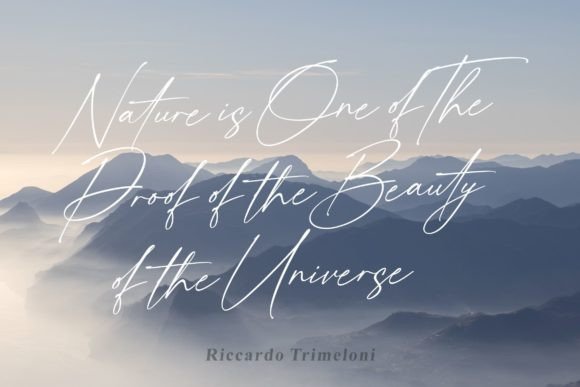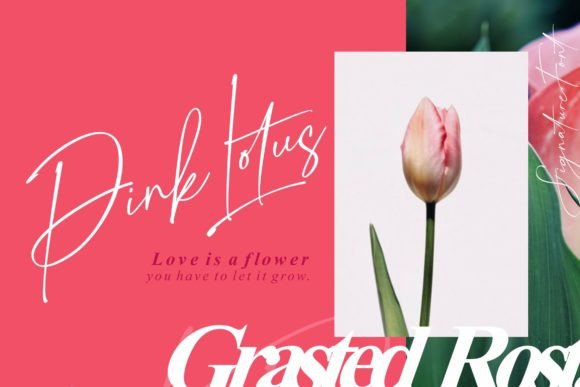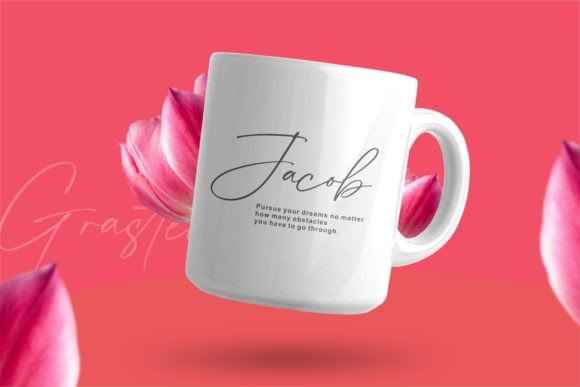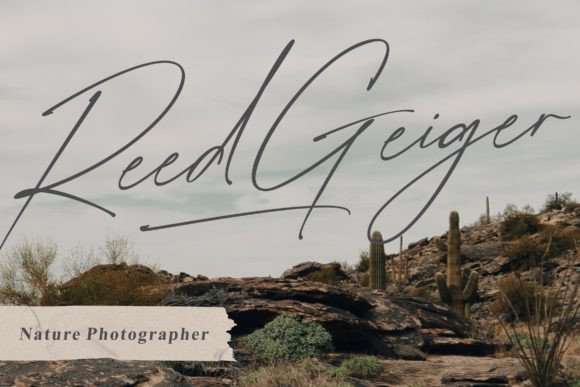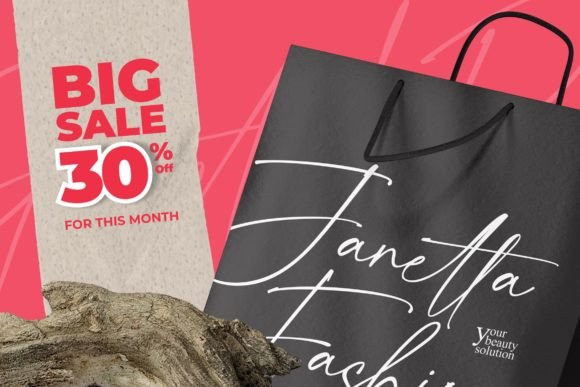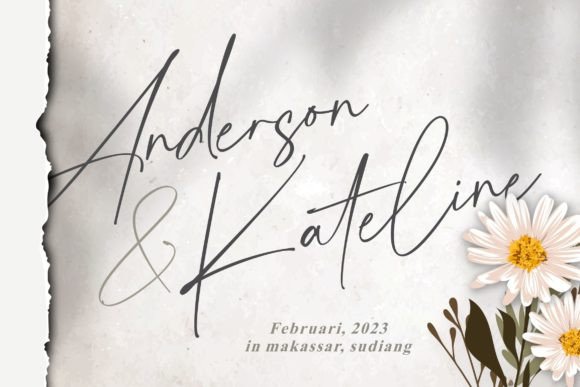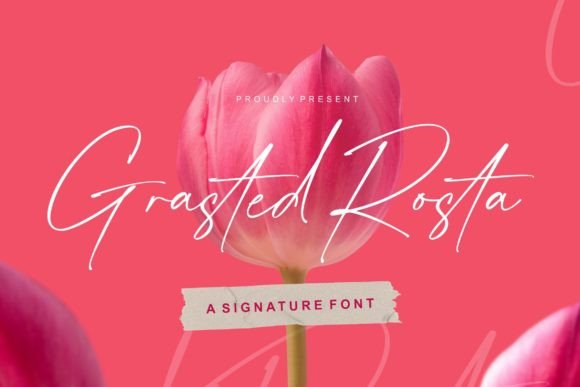
Introducing Grasted Rosta: The Ultimate Handcrafted Signature Font for Designers and Crafters
In the world of design, a font can make all the difference in creating a lasting impression. For designers and crafters looking for a modern and elegant touch, Grasted Rosta is the perfect solution. This handcrafted signature font is designed to elevate your branding, photography, invitations, quotes, watermarks, advertisements, product designs, social media posts, stationery, labels, and more!
What Makes Grasted Rosta Special?
Grasted Rosta is more than just a font – it’s a statement piece. With its modern and elegant design, this font is perfect for those who want to add a touch of sophistication to their work. The handcrafted signature style gives it a personal and unique feel, making it ideal for designs that require a human touch.
One of the standout features of Grasted Rosta is its PUA (Private Use Area) encoding. This means that you can access all of the glyphs and swashes with ease, giving you complete creative control over your designs. With PUA encoding, you can effortlessly navigate through the font’s extensive character set, including ligatures, alternates, and swashes.
Grasted Rosta is incredibly versatile, making it perfect for a wide range of design applications. Here are just a few examples of how you can use this amazing font:
- Branding: Create a lasting impression with custom logos, business cards, and letterheads that showcase your brand’s personality.
- Photography: Add a touch of elegance to your photo captions, watermarks, and social media posts.
- Invitations: Make your invitations, wedding cards, and event flyers truly special with Grasted Rosta’s beautiful script.
- Quotes and Typography: Create stunning quote graphics, typographic posters, and inspirational wall art.
- Advertisements: Elevate your ads with a sophisticated and eye-catching font that grabs attention.
- Product Designs: Add a personal touch to your product labels, packaging, and branding materials.
- Social Media Posts: Stand out on social media with custom graphics, quotes, and typographic posts.
- Stationery and Labels: Create beautiful stationery, labels, and stickers that showcase your personality.
Why Choose Grasted Rosta?
With so many fonts available, why choose Grasted Rosta? Here are just a few reasons why designers and crafters love this font:
- Unique and Handcrafted: Grasted Rosta is a one-of-a-kind font that’s been carefully crafted to provide a personal touch.
- Modern and Elegant: This font’s modern and elegant design makes it perfect for a wide range of design applications.
- PUA Encoded: With PUA encoding, you have easy access to all glyphs and swashes, giving you complete creative control.
- Extensive Character Set: Grasted Rosta includes a wide range of characters, including ligatures, alternates, and swashes.
Grasted Rosta is the ultimate handcrafted signature font for designers and crafters looking for a modern and elegant touch. With its PUA encoding, extensive character set, and endless design possibilities, this font is perfect for a wide range of applications. Whether you’re creating branding materials, social media posts, or product designs, Grasted Rosta is sure to elevate your work and leave a lasting impression.